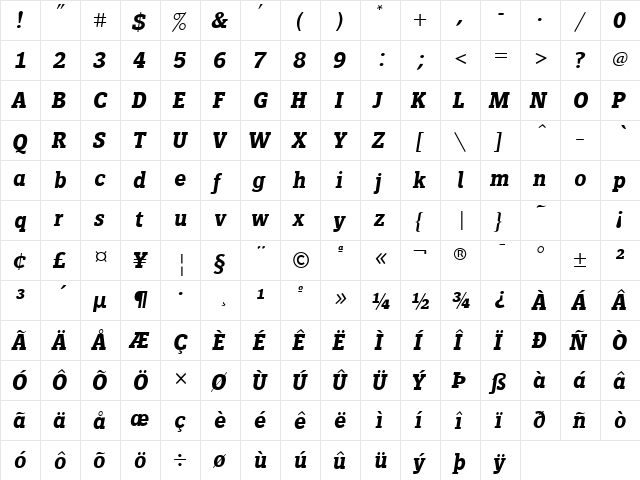
Siseriff LT Std SemiboldItalic Regular Font Preview
| Foundry | Linotype Library GmbH |
| Designer | Bo Berndal |
Design Context for Siseriff LT Std SemiboldItalic Typeface
Siseriff LT Std SemiboldItalic brings classic typographic sensibility to the table — its serifs and measured letterforms reflect centuries of print heritage. The slanted form adds forward momentum and visual energy. The heavy weight commands attention and anchors typographic hierarchies.